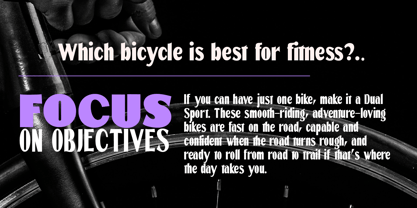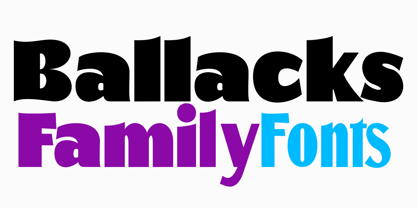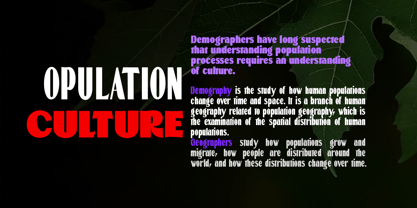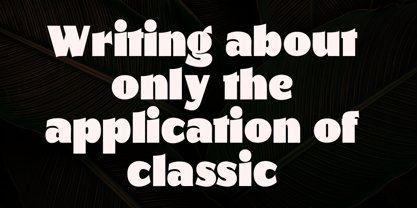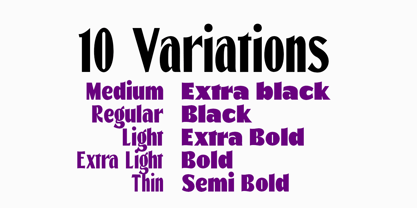
Ballacks
by Groen Studio
The Ballacks Font Family was designed by Roiyani Teungku and published by Groen Studio. Ballacks contains 10 styles and family package options.
Ballack's is a font family that has 10 variations, divided into normal . The Ballack's font is a unique sans font.
Ballack's is a millennial generation sans font, made with a very soft touch.
Multilingual support for various languages including: French, German, Spanish, Portuguese, Italian, Dutch, Finnish, Swedish, russia, greek, coptic, cyrillic, turkey and more.
Designers: Roiyani Teungku